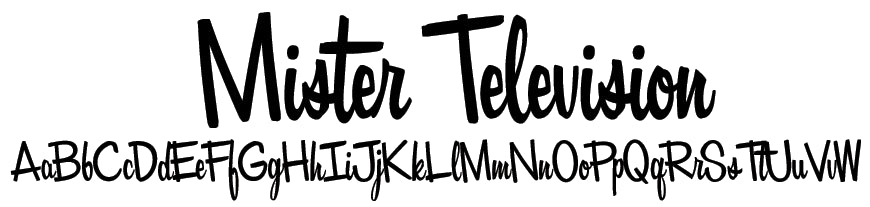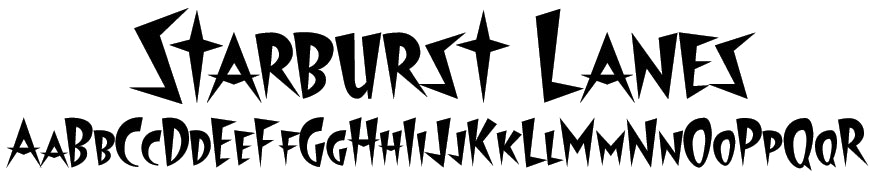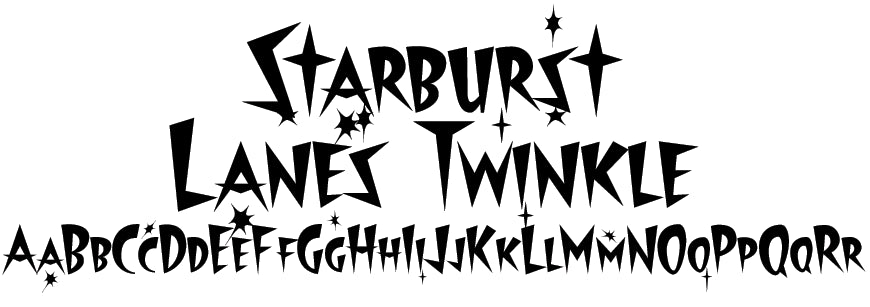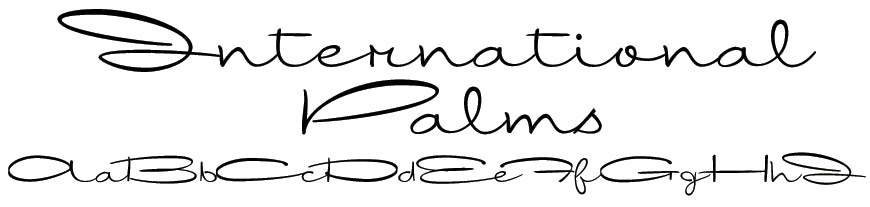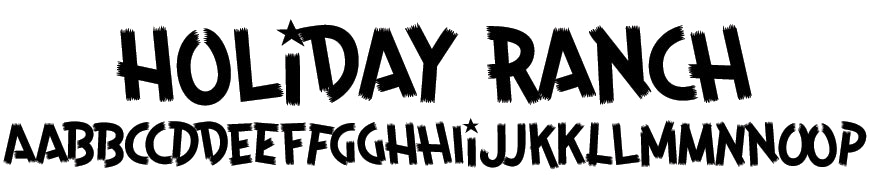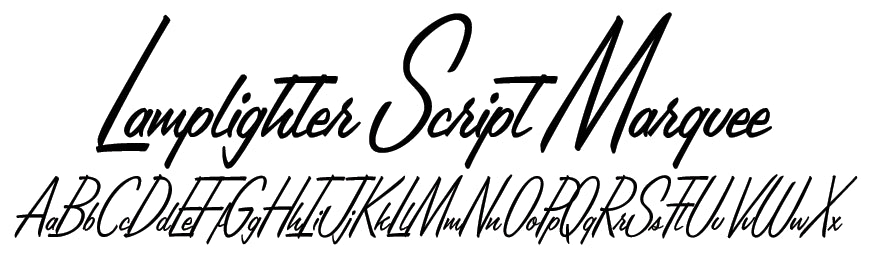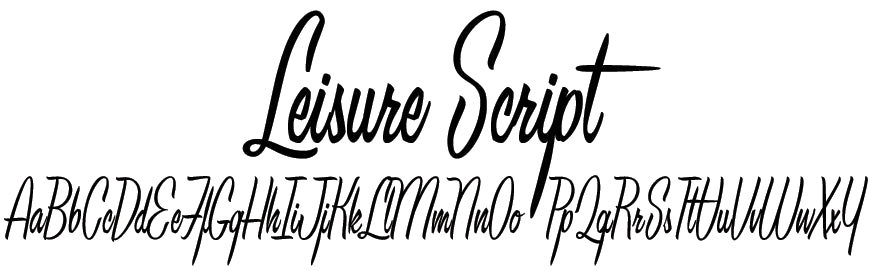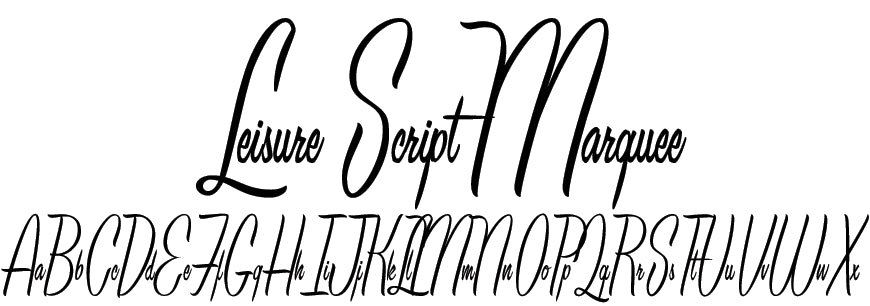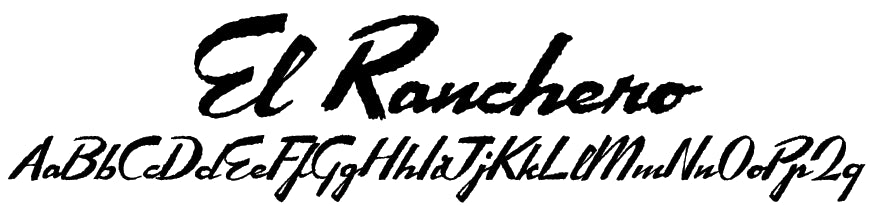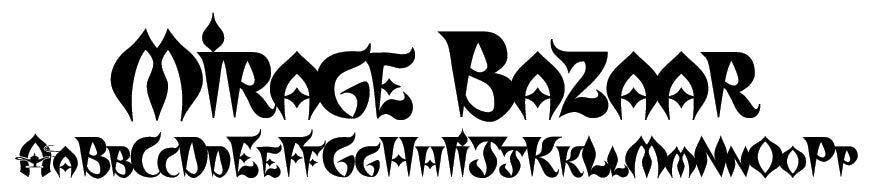
Jackpot! Double-down with the Casino Buffet Font Set inspired by vintage Las Vegas typography, signage and lettering of the 1950s and 1960s! Enjoy the bright lights of the Las Vegas Strip anytime with this fun retro font collection!
Casino Buffet Font Set